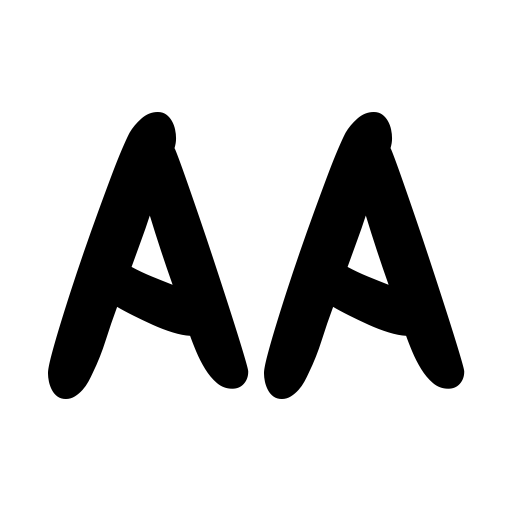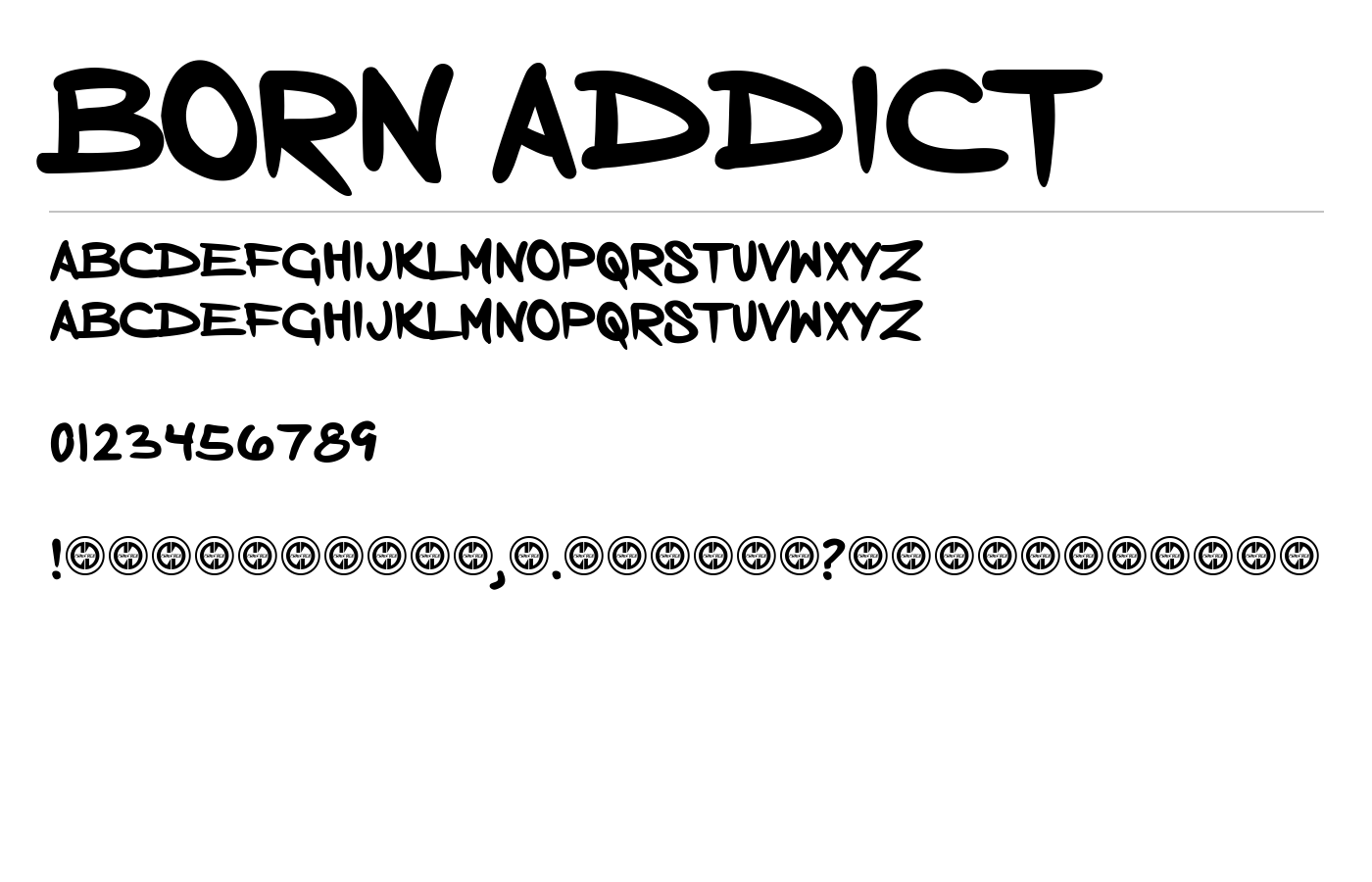
Born Addict is a bold and casual handwritten sans serif font that features playful, irregular strokes and a friendly, approachable vibe. Its lively letterforms with varying thickness and rounded edges make it perfect for informal designs, creative projects, and attention-grabbing headlines. This font works best in branding, posters, and any context where a fun and energetic personality is desired.
Born Addict Font
About Born Addict Font